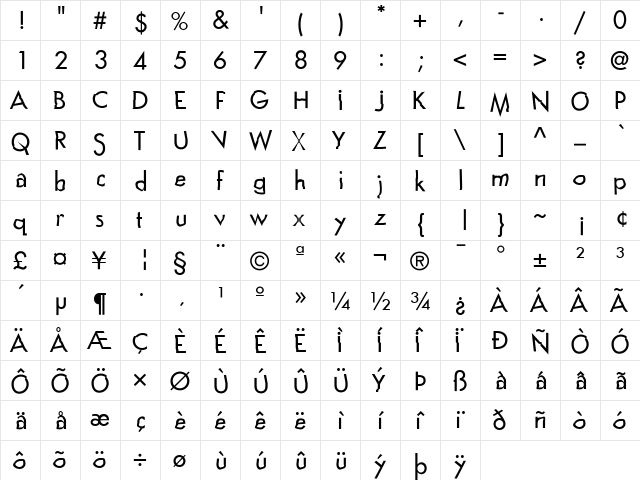
ITCYomama Medium
Design Context for ITCYomama Typeface
ITCYomama takes a measured approach to typography — its balanced proportions and neutral character make it a reliable workhorse for both digital and print work.